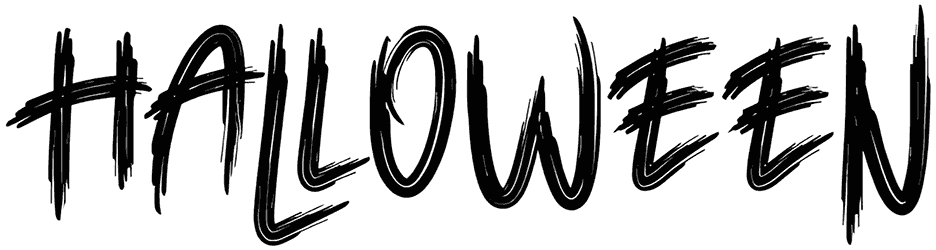
Halloween Font
If finding a suitable brush font for designing high-end artwork is a time-consuming task for you, then you should consider Halloween as a reliable source of inspiration.
Aside from not supporting lowercase letters, this Halloween font comes with angular characters and leads to a vibe of momentum, fear, dread, or tenderness. You can boost the level of your social media posts, flyers, billboards, or product packaging by utilizing this masterpiece.